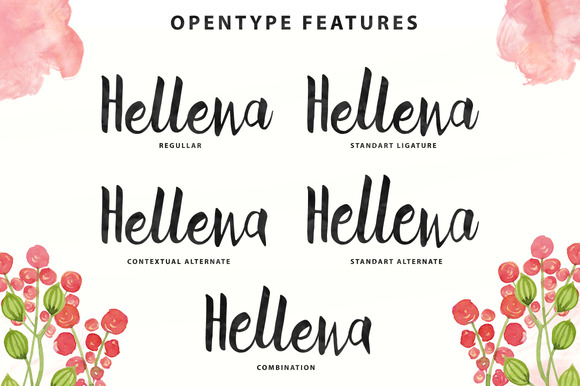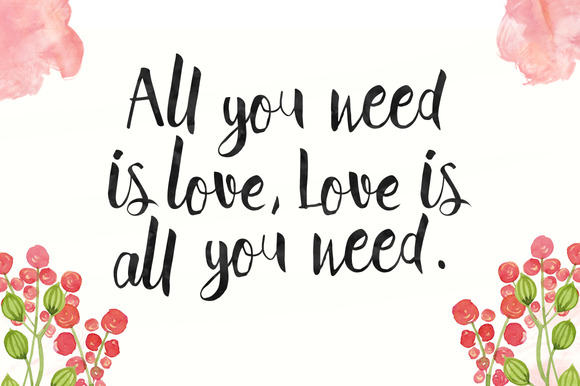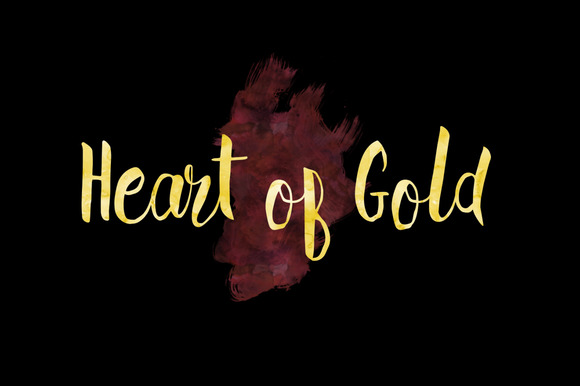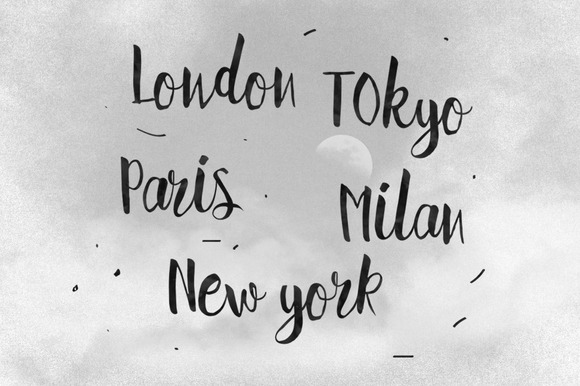
Hellena Script Font: A Beautiful Handmade Brush Script with a Natural Look
Are you a designer or crafter looking for a unique and elegant font to add a personal touch to your projects? Look no further than Hellena Script Font, a stunning handmade brush script with a natural look that’s sure to capture your audience’s attention. In this article, we’ll dive into the features and benefits of Hellena Script, and explore how it can elevate your designs and crafts.
What is Hellena Script Font?
Hellena Script is a beautiful handmade brush script font with a natural look, created to bring a touch of elegance and sophistication to your designs. With its unique, hand-crafted aesthetic, Hellena Script is perfect for a wide range of projects, from wedding invitations and branding materials to craft tutorials and social media graphics.
Key Features of Hellena Script Font
- Handmade with love: Hellena Script is carefully crafted by hand, giving it a unique and personal touch that’s hard to replicate with digital fonts.
- Natural look: The font’s natural, hand-brushed look adds a touch of warmth and authenticity to your designs.
- Elegant and sophisticated: Hellena Script is perfect for designs that require a touch of elegance and refinement.
- High-quality: The font is designed to be high-quality and versatile, making it suitable for a wide range of applications.
Benefits of Using Hellena Script Font
So why choose Hellena Script Font for your next project? Here are just a few benefits of using this beautiful handmade brush script:
- Add a personal touch: With Hellena Script, you can add a personal touch to your designs that sets them apart from the rest.
- Stand out from the crowd: The font’s unique, handmade aesthetic ensures that your designs will stand out from the crowd and grab attention.
- Perfect for crafty projects: Hellena Script is a great choice for crafty projects, such as handmade cards, scrapbooking, and other paper crafts.
How to Use Hellena Script Font
| Font Name | Hellena Script Font |
| Author | QueenType |